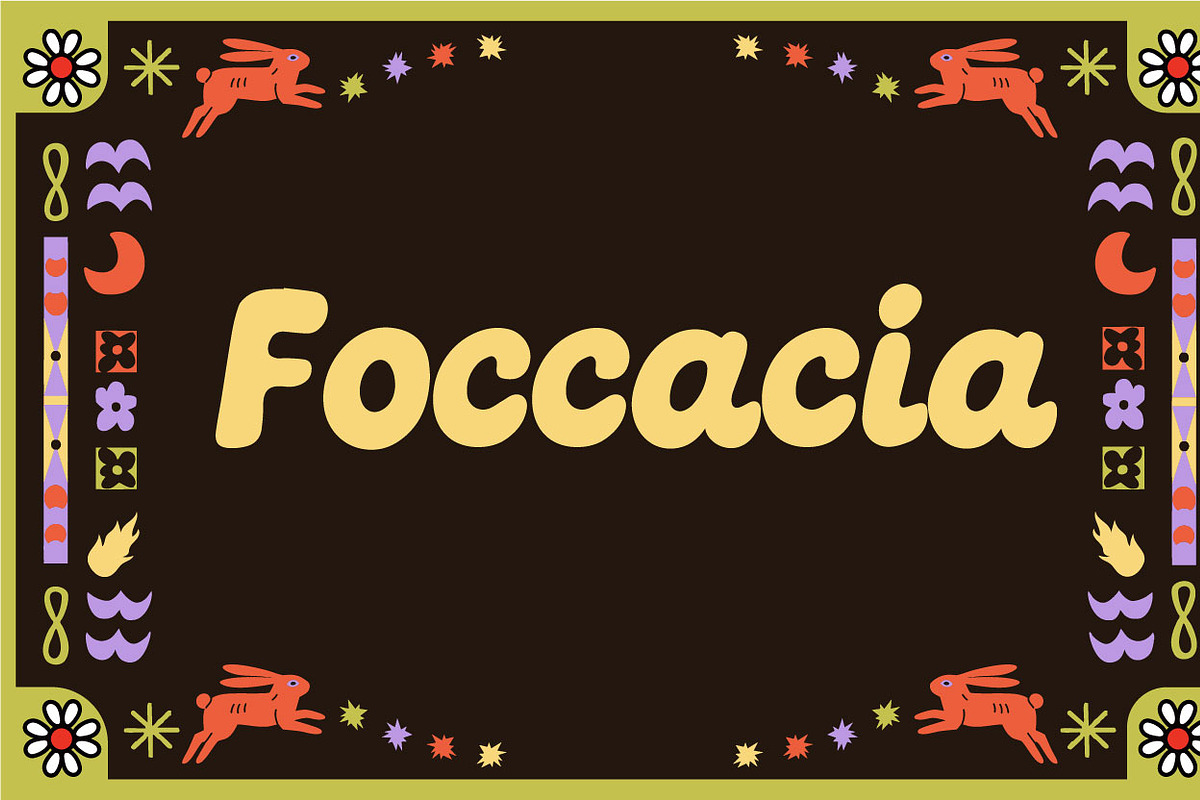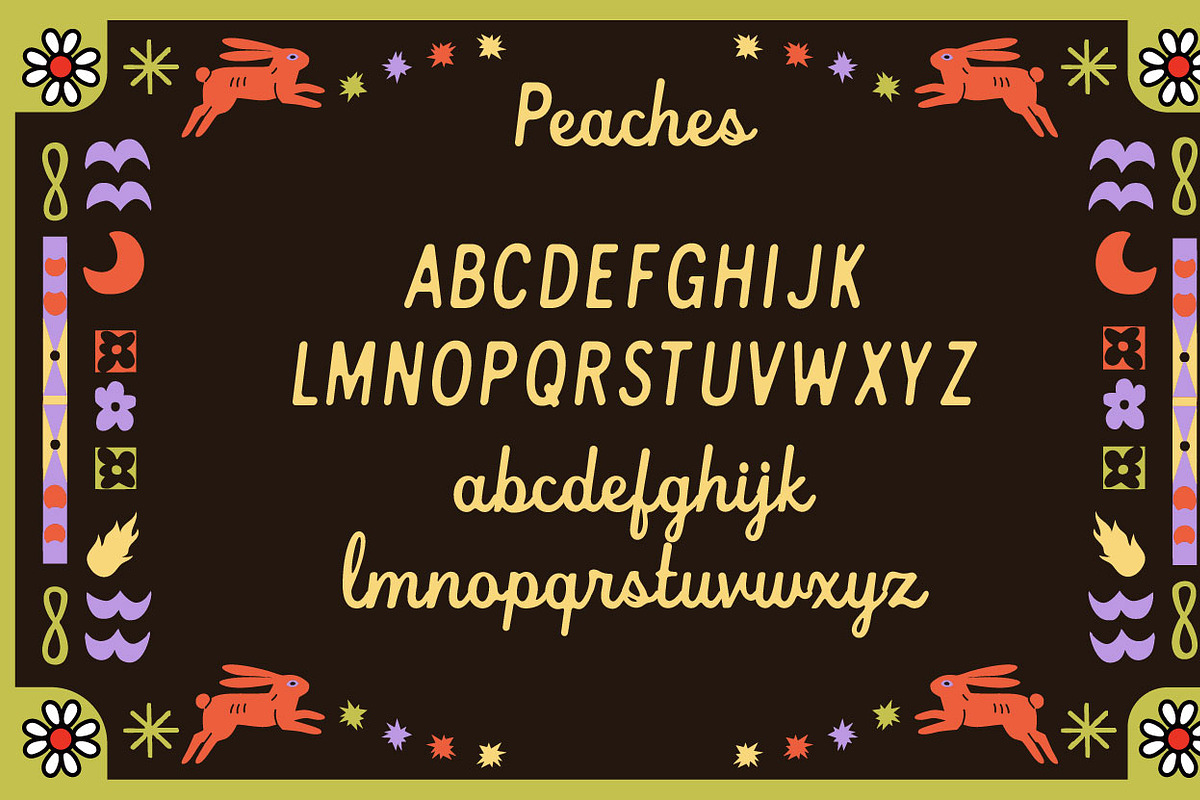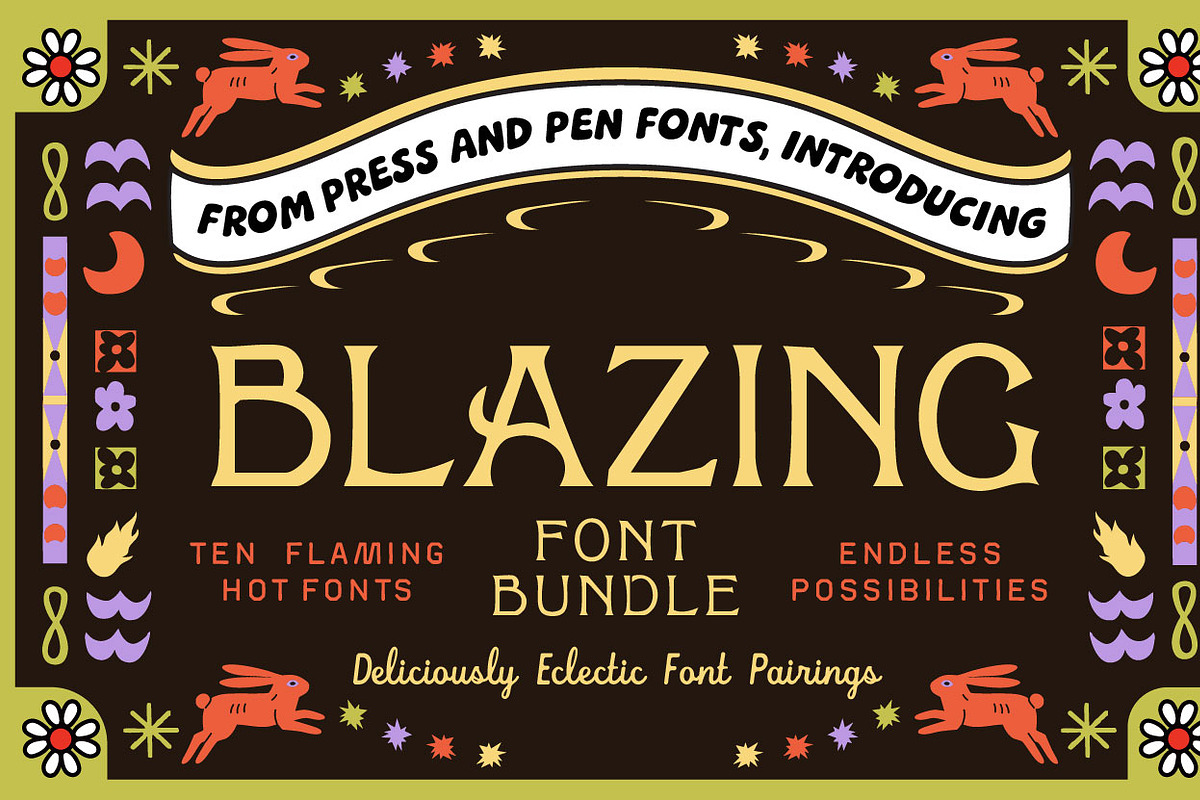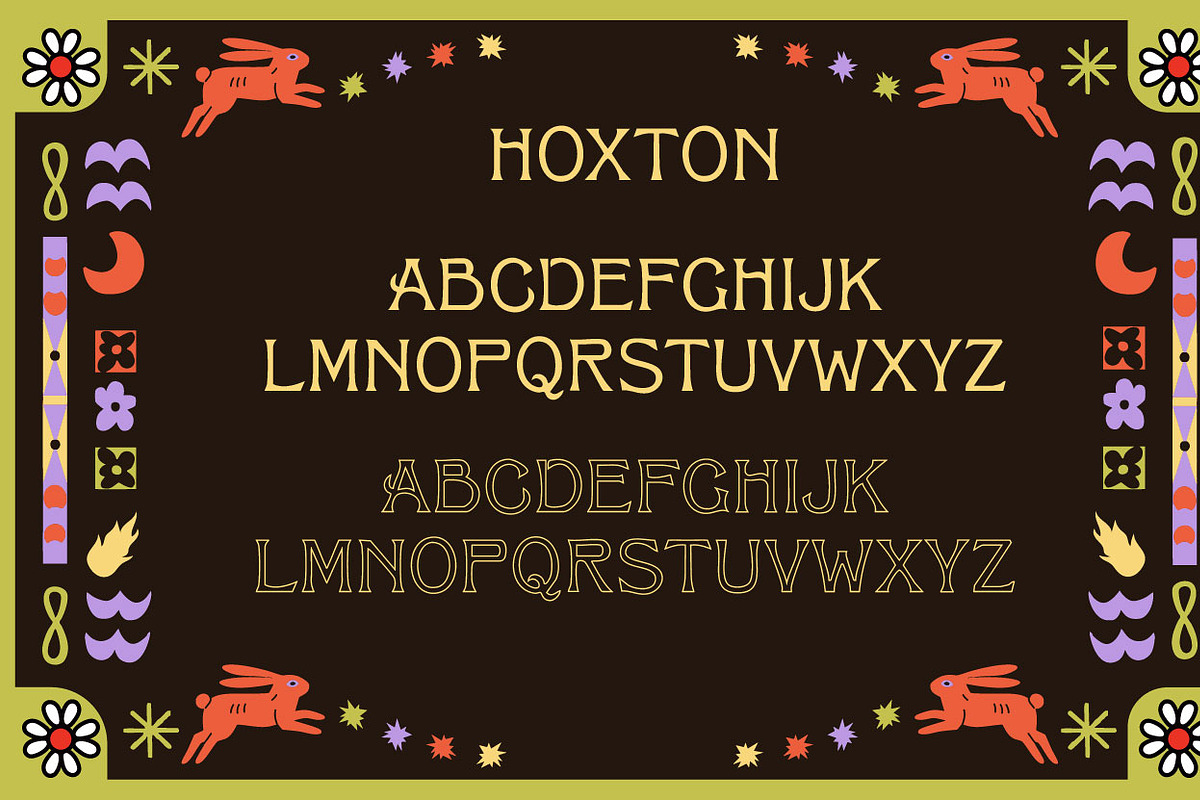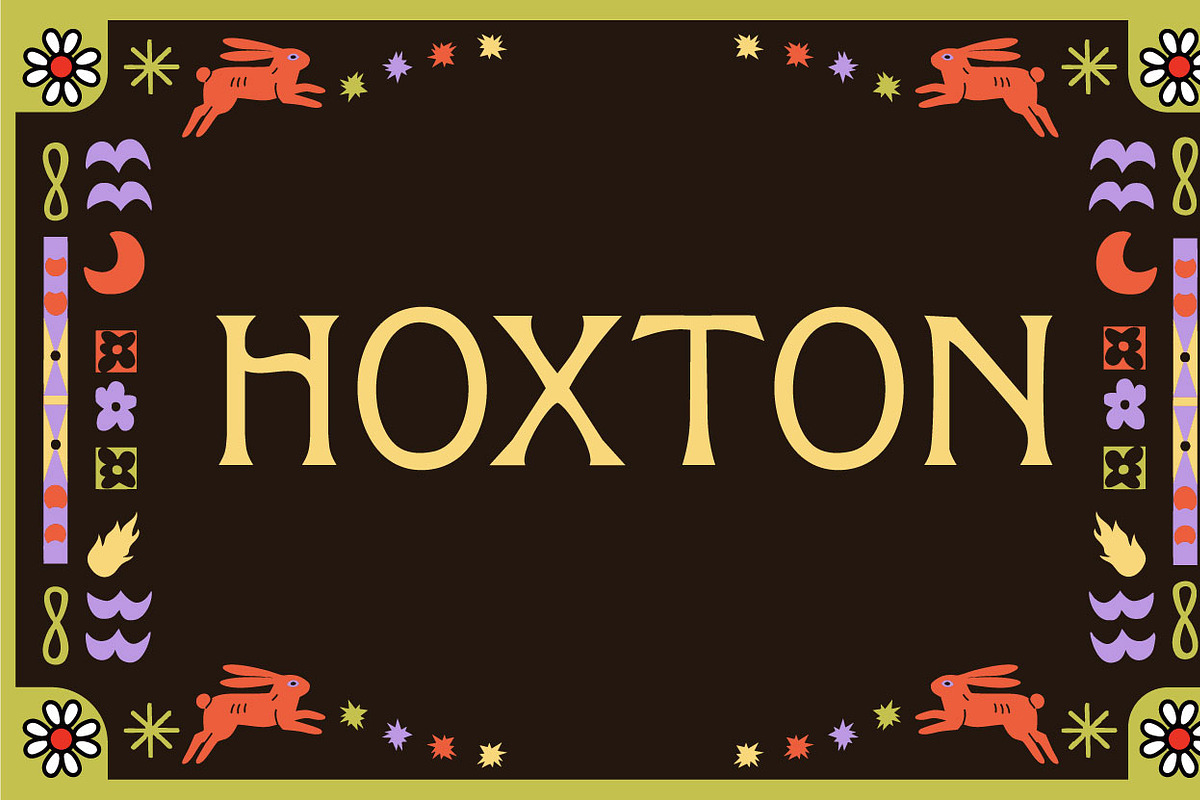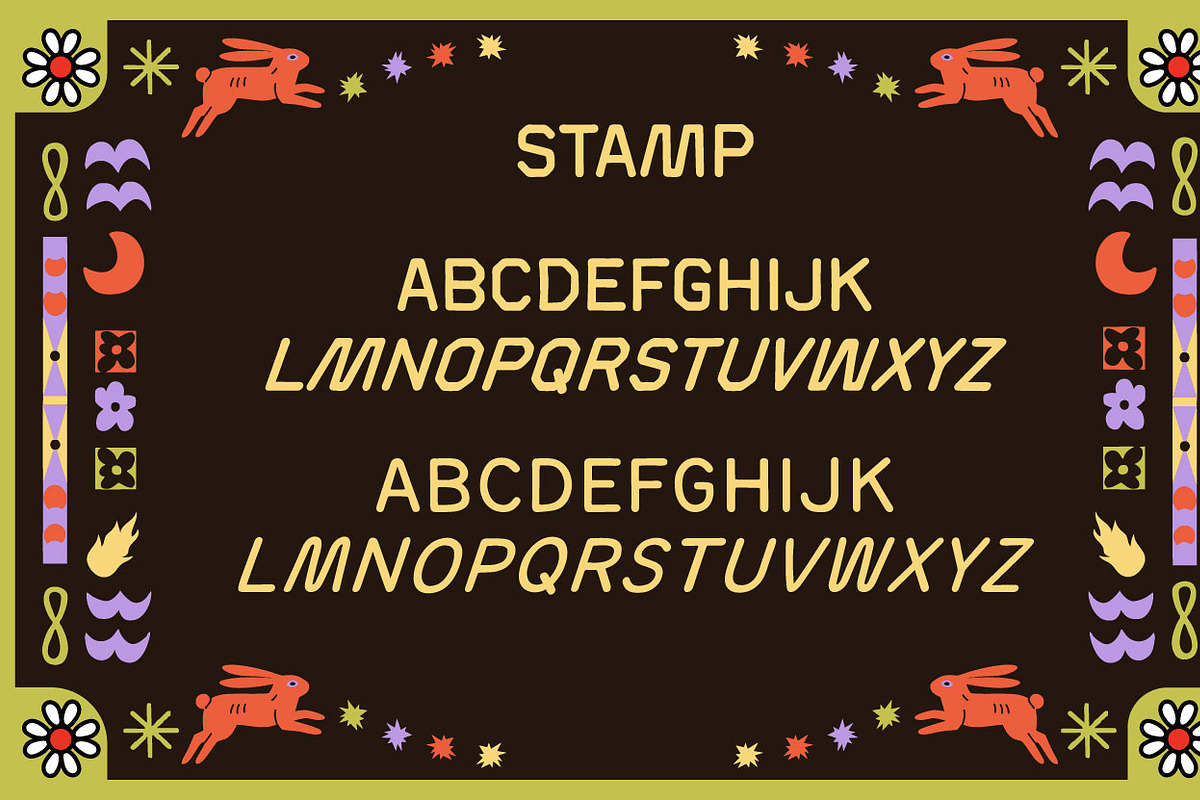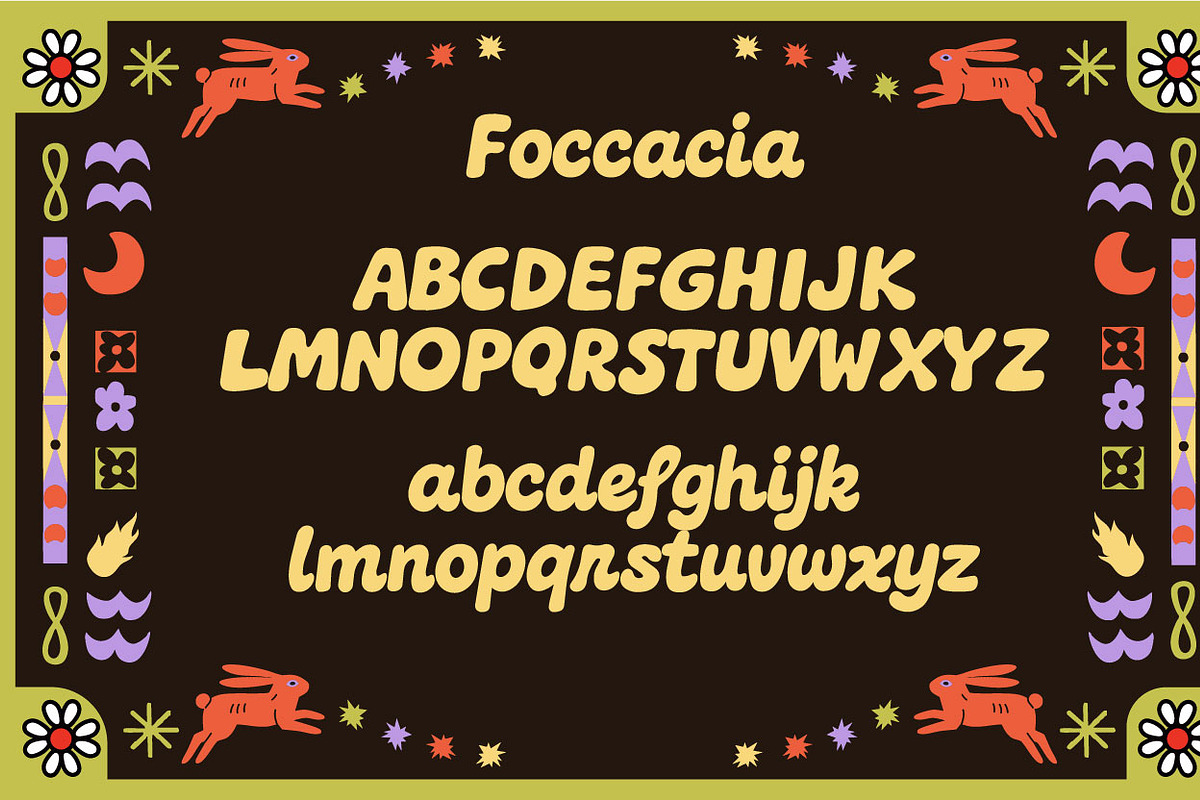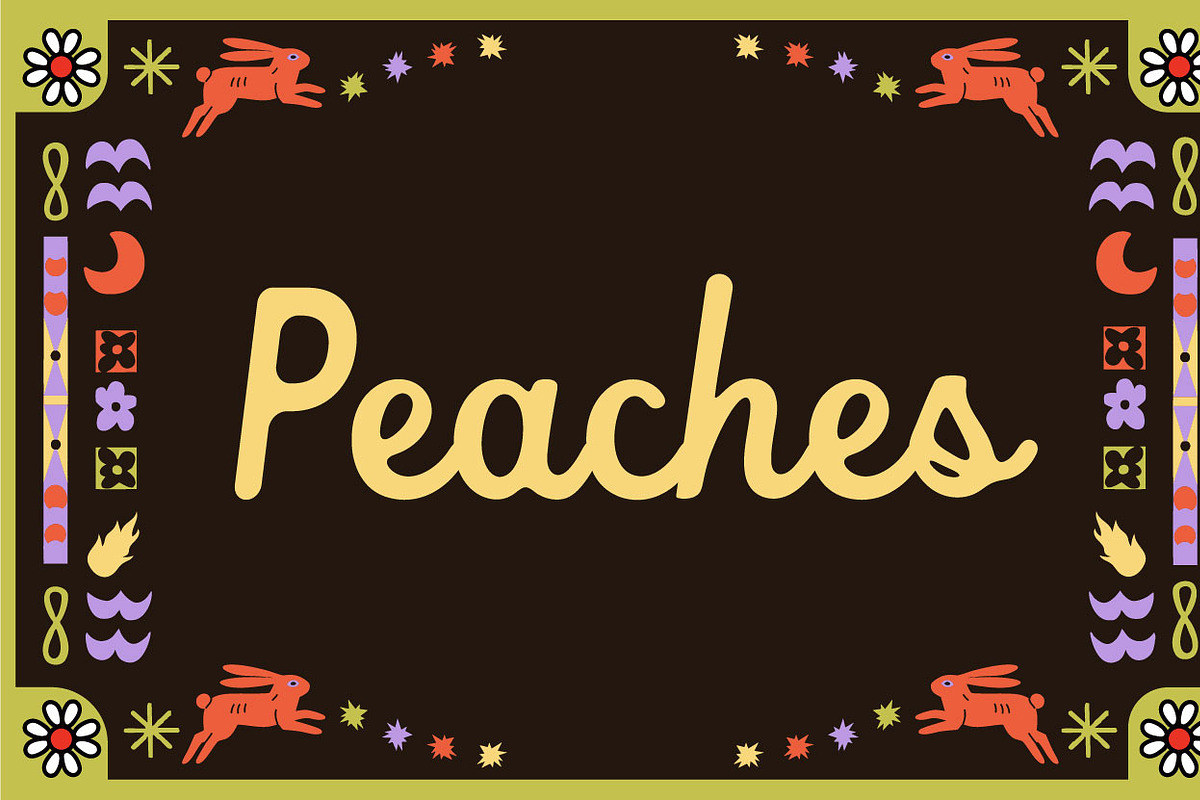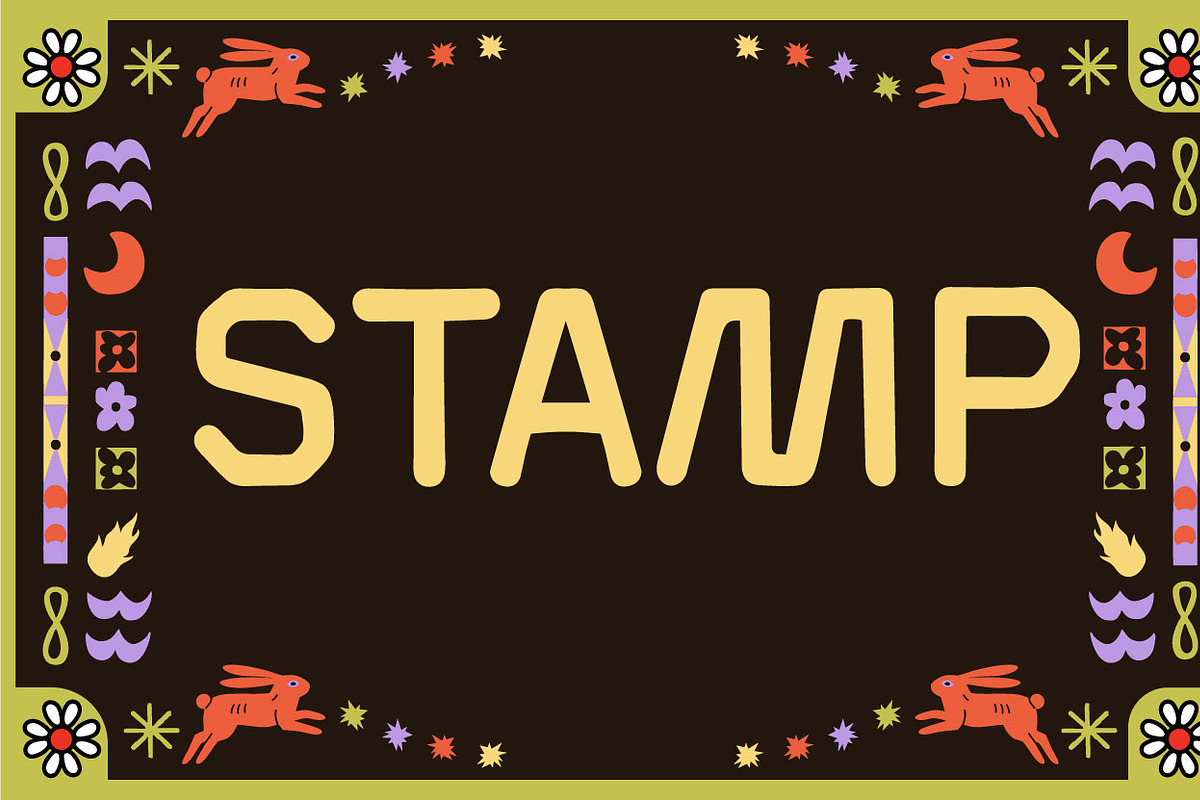
Font Bundle: Blazing Hot fonts
The Ultimate Handmade Bundle: 10 High-Impact Typefaces. Yes, Ten. Stop hunting for the perfect pairing and start creating. This curated bundle brings together our four most versatile, handmade fonts—Peaches, Foccacia, Hoxton, and Stamp—into one powerhouse collection.
Separately, these fonts are heavy hitters; together, they unlock an unending realm of design glory. Whether you are building a gritty streetwear brand, a luxury coffee identity, or a vintage-inspired editorial layout, this bundle gives you the professional tools to execute any vision.
What’s Inside the Vault: Peaches: A soft but confident display face with a modern-retro soul.
Focacia: Thick, artisanal, and full of character—perfect for branding that needs to feel tactile. Includes Bold version, script, and regular.
Hoxton: An edgy, urban-inspired typeface that brings a sharp, contemporary bite. Includes regular and outlined versions.
Stamp: Bold, weathered, and authoritative, designed for a high-impact "stamped" aesthetic. Includes Bold-square, bold-square italic, Medium-round, and medium-round italic.
Professional Features: Distinctly Handmade: Each character has been meticulously crafted to maintain an organic, custom-lettered feel that avoids the "cookie-cutter" look of digital fonts. This will give your work the customized sophistication look and feel.
Deep OpenType Support: Packed with stylistic alternates, ligatures, and decorative swashes, giving you the flexibility to customize every word.
Perfectly Balanced Pairings: These fonts were designed to complement one another, creating a cohesive visual language for complex branding projects.
Multi-Project Versatility: From gold-foil packaging to screen-printed merch, these fonts are technically optimized for both digital and physical applications